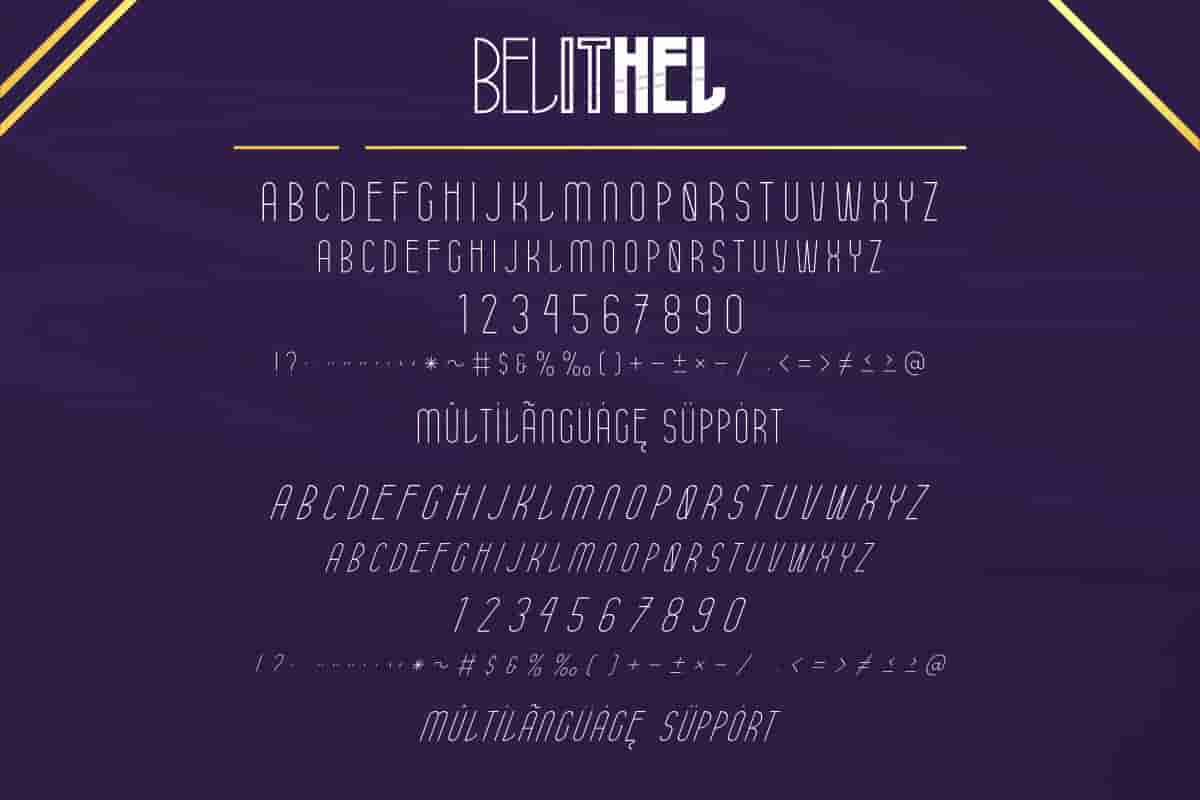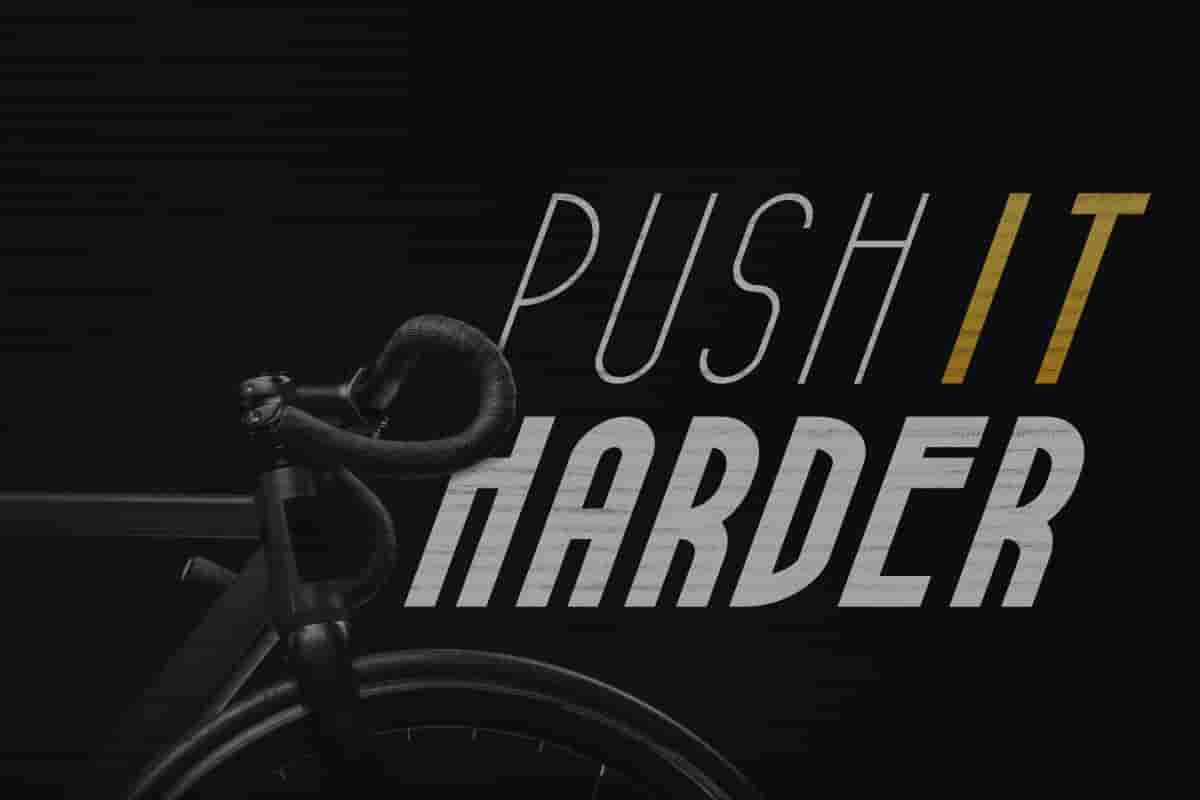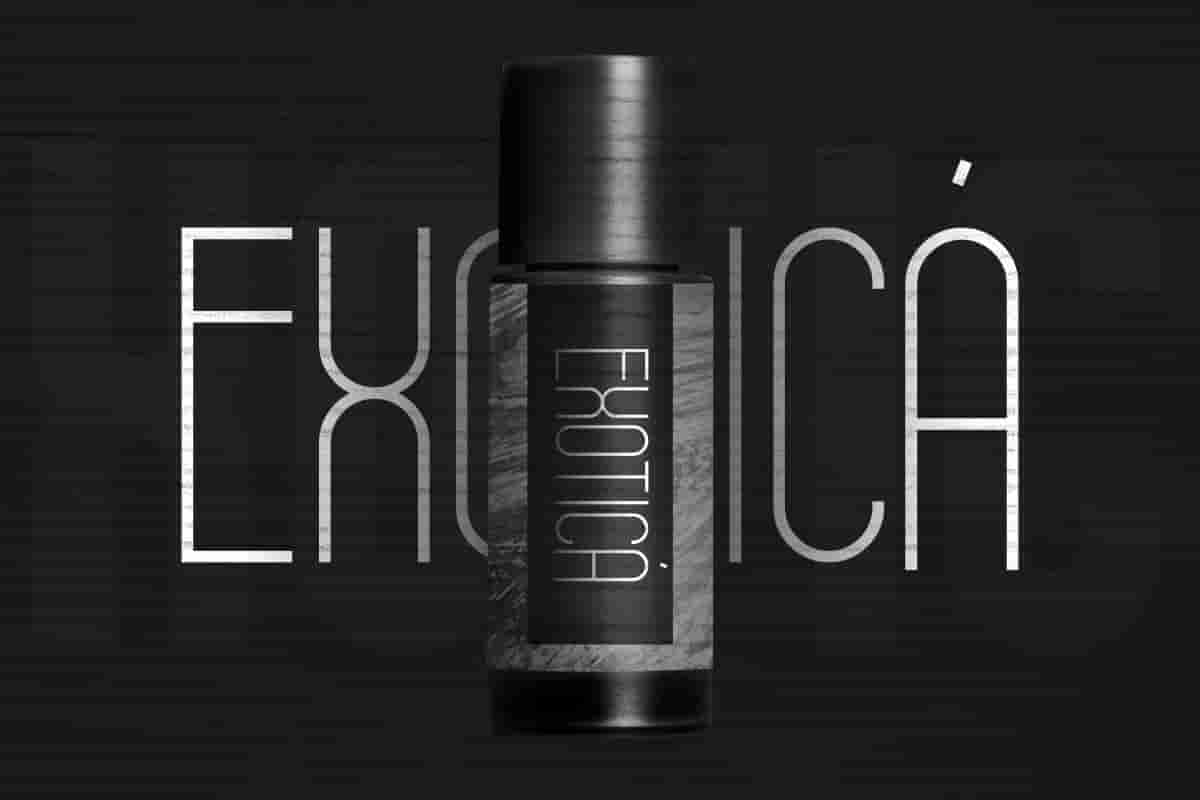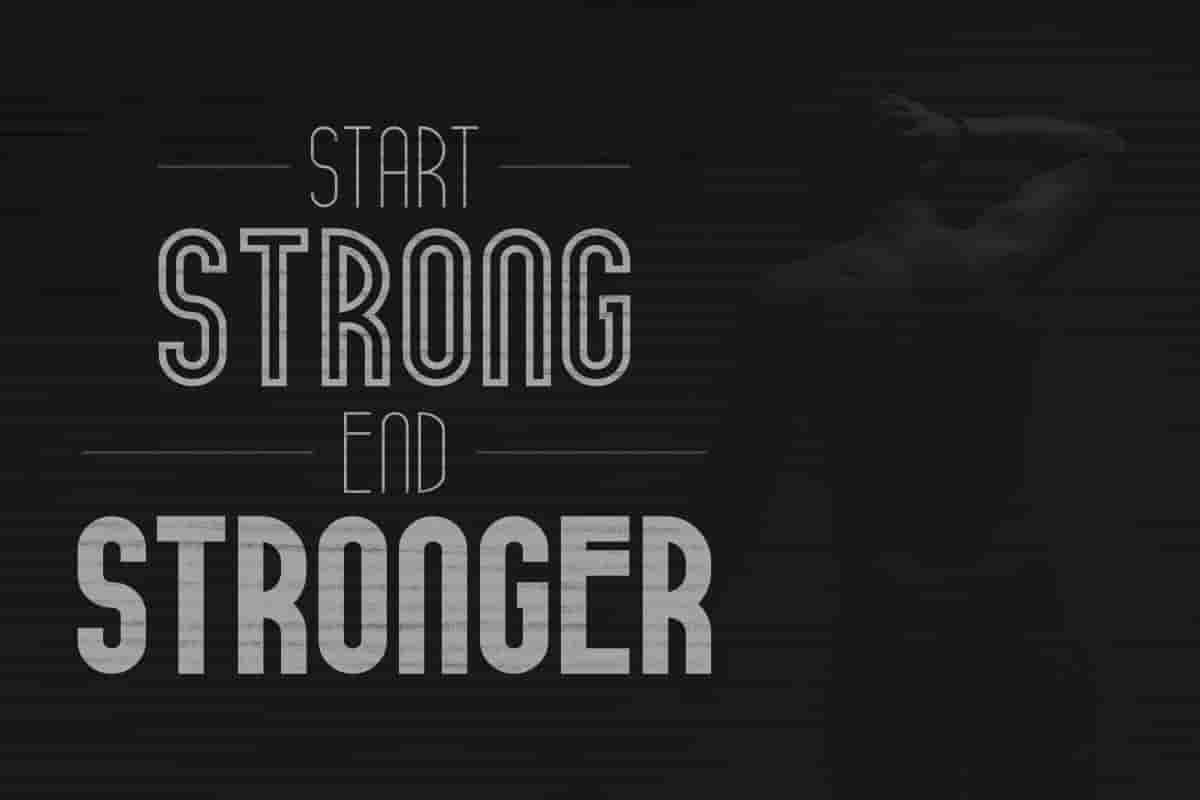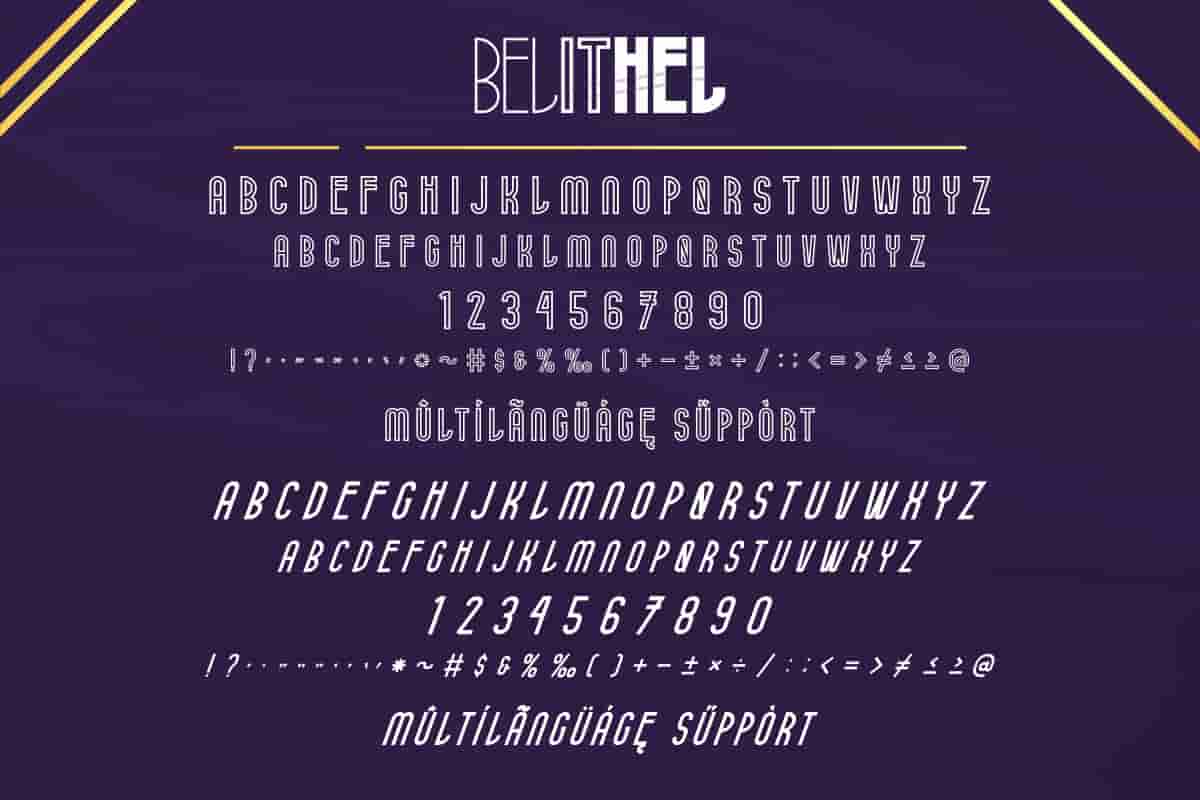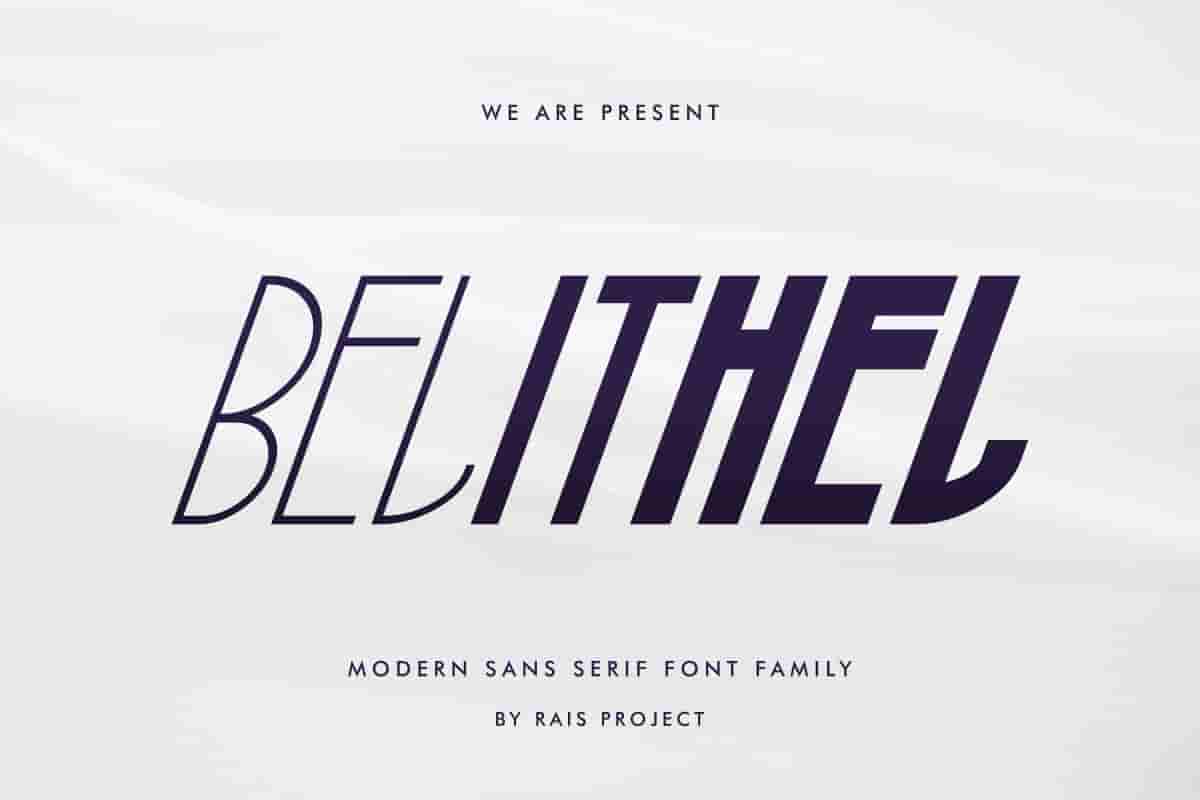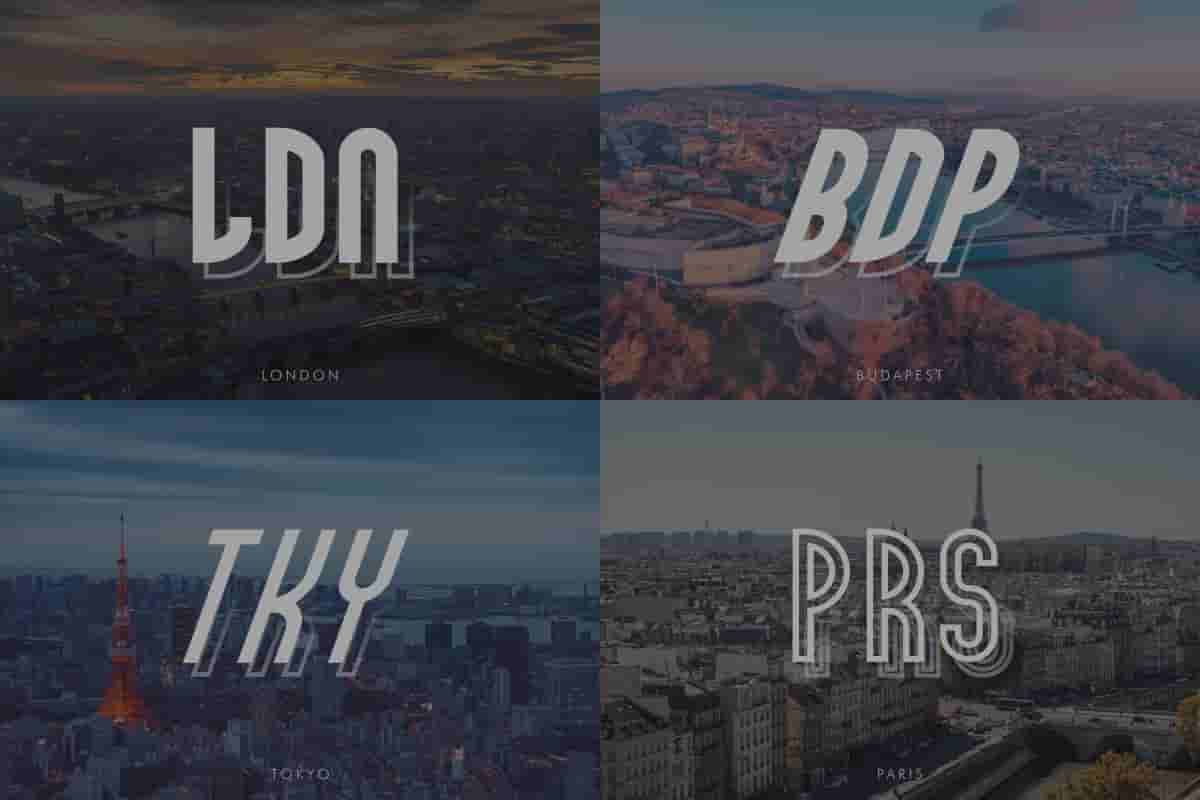
Belithel Sans Serif Font
Belithel Font is a display sans serif font family, designed by Rais Project. It has clean, modern and stylish style. Belithel Font comes with SEVEN different styles.
Belithel Font is a Sans Serif display font family, designed by Rais Project. Belithel Font is newest font on the market. It has clean, modern and stylish style. You can see the demo font below. You can also input any word you want so you can see what it will look like Belithel Font is remotely made by RaisProject team in Indonesia.
Use Belithel to craft stunning logos, headlines, packaging, and digital designs that feel fresh and forward-thinking. Its geometric structure and balanced spacing bring visual harmony to every project.
From social media graphics to website headers, Belithel keeps your message strong and clear.Belithel includes uppercase, lowercase, numbers, punctuation, and multilingual support.